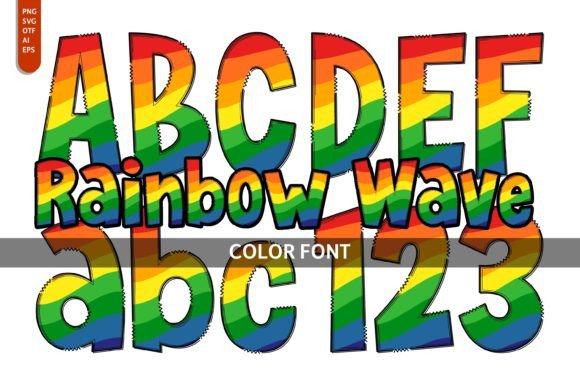
Welcome to the world of Rainbow Wave Font, an extraordinary creation from Imagination Switch! Let your imagination run free with this playful and captivating font that will bring life to your creative projects.
Rainbow Wave is more than just a font – it's an artistic masterpiece that captivates and enchants. Its vibrant colors and dynamic curves evoke a sense of joy and wonder, making it the perfect choice for projects that demand attention.
Picture this: a children's book brought to life with Rainbow Wave's playful characters, enchanting posters that draw the eye, invitations that exude warmth and cheer, and greeting cards that spread happiness wherever they go. With Rainbow Wave, your projects will leap off the page and into the hearts of your audience.
But Rainbow Wave's magic doesn't end there. It's also incredibly versatile, seamlessly adapting to different design styles and themes. Whether you're creating digital designs or physical crafts, Rainbow Wave effortlessly enhances your creations with its eye-catching charm.
Unlock your creativity and transform your projects into masterpieces with Rainbow Wave. Let its vibrant colors and playful spirit elevate your designs to new heights.